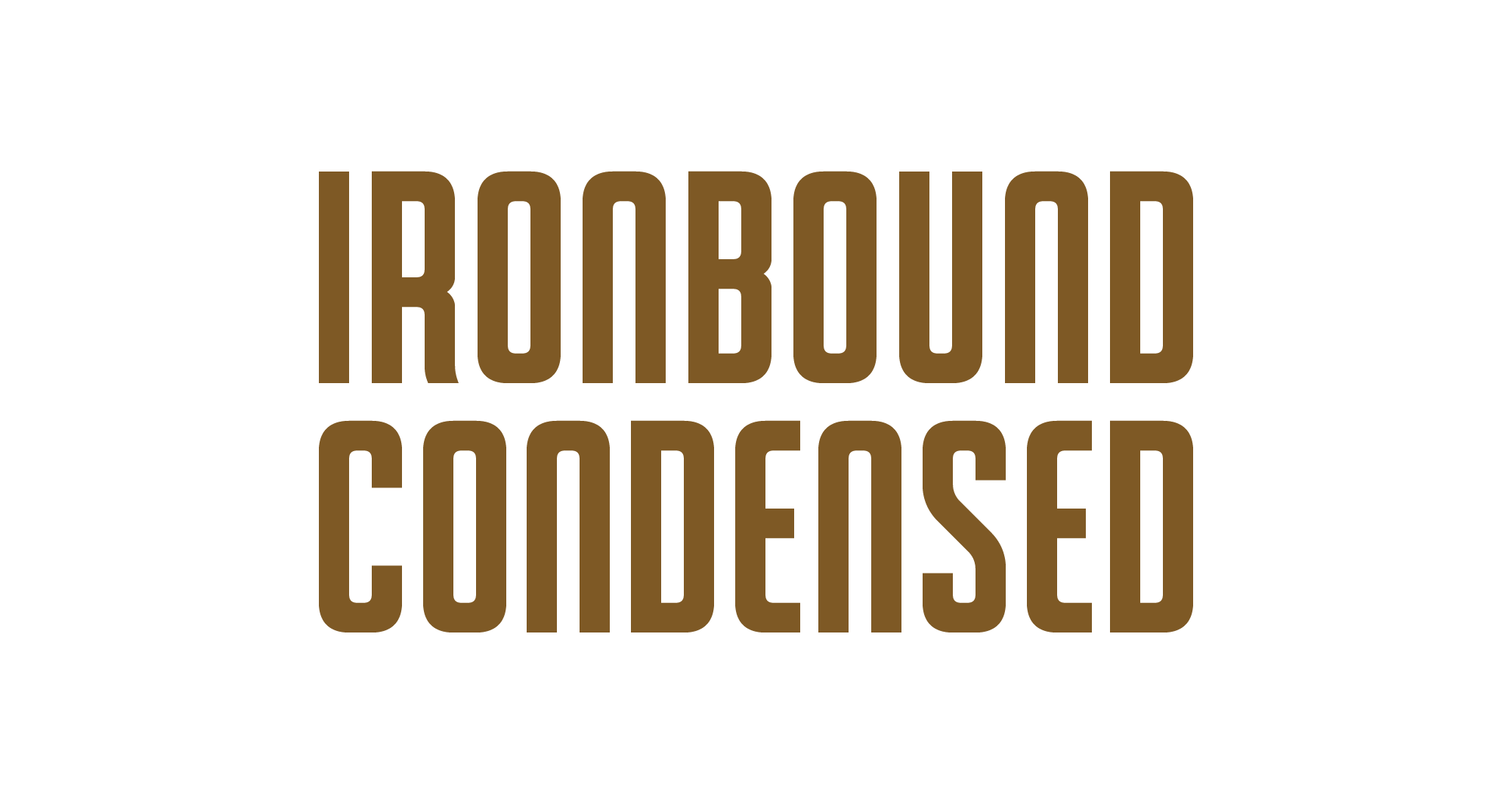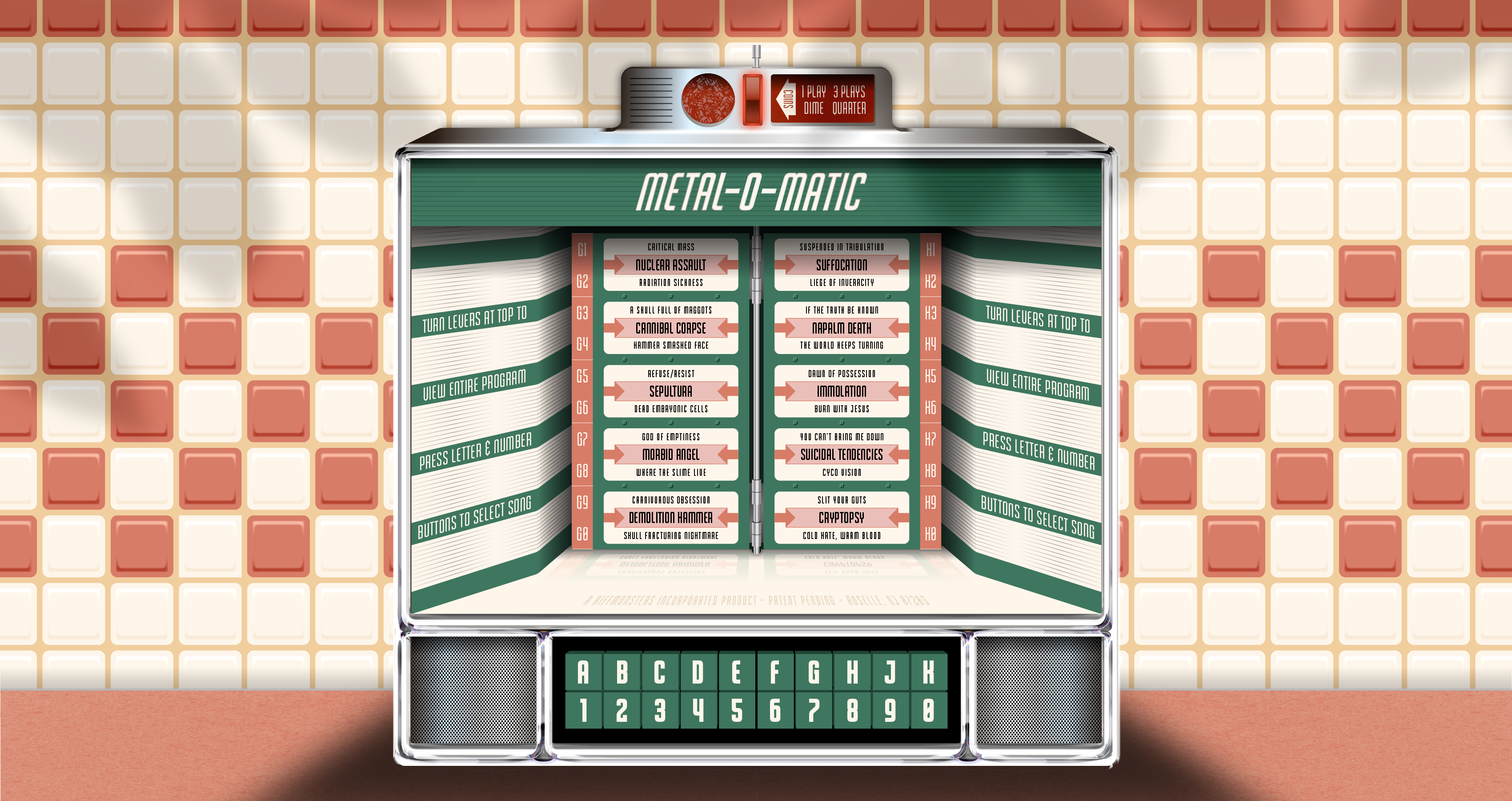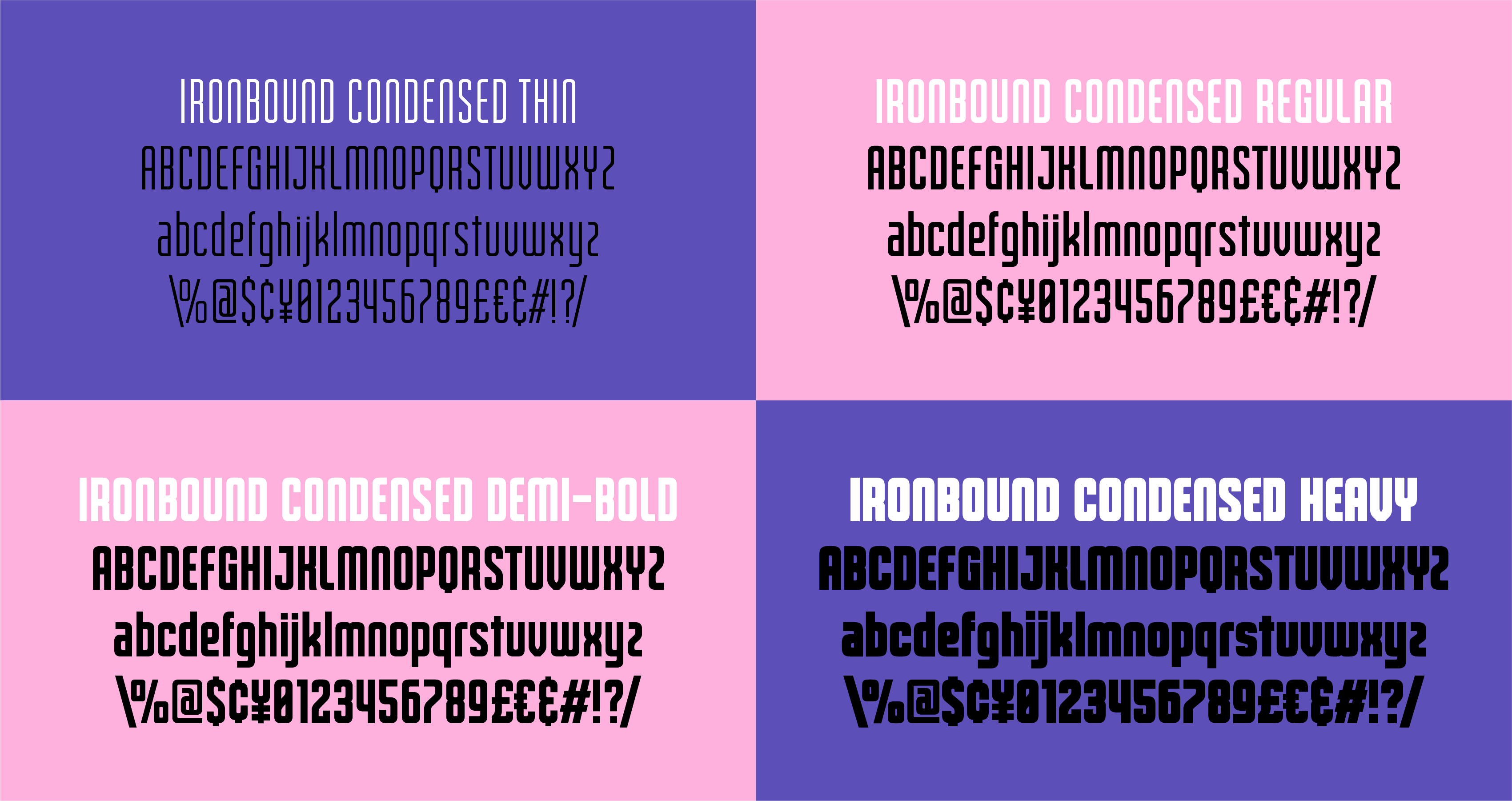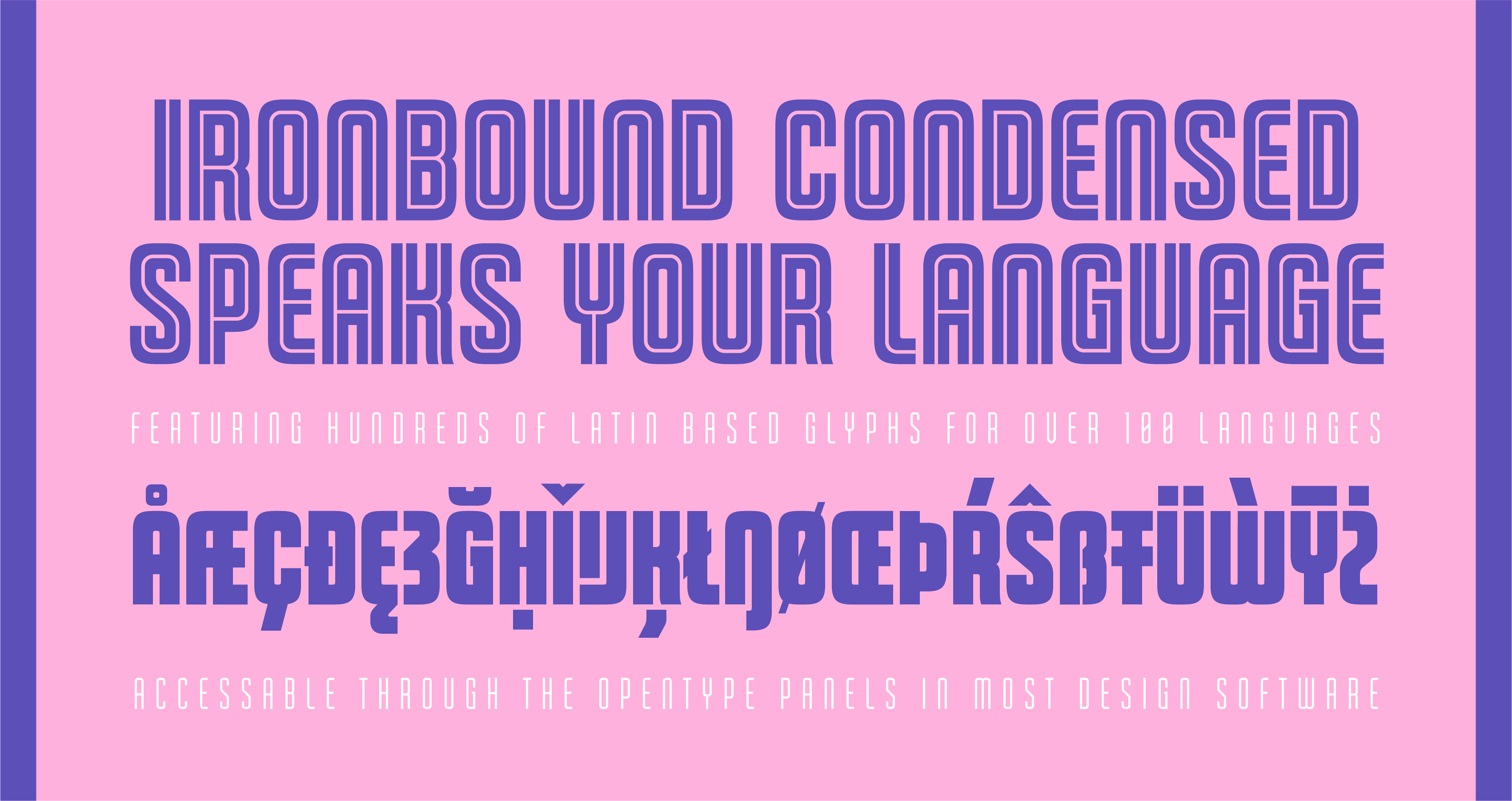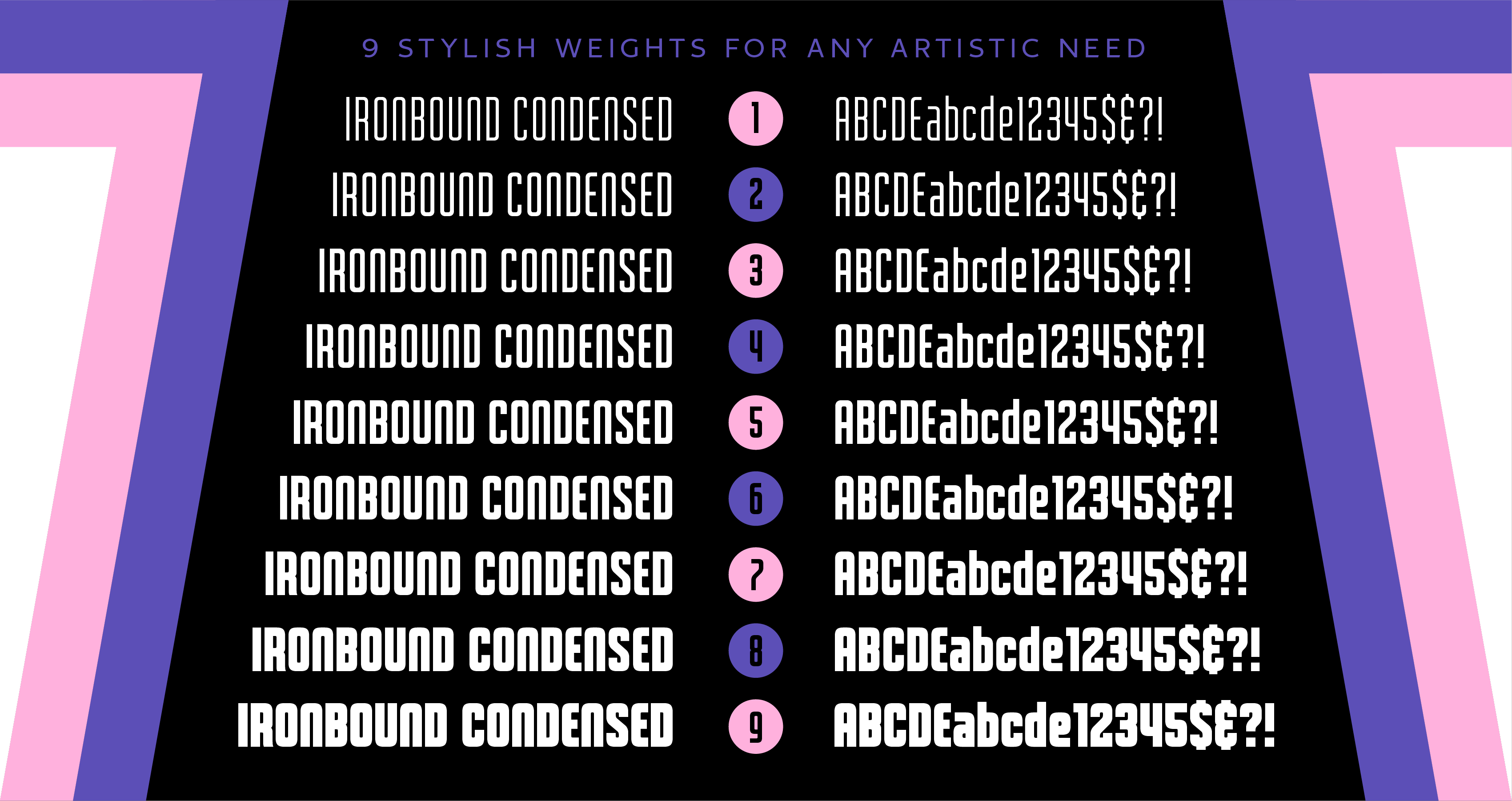
Ironbound Condensed
NEON NIGHTS AND SHORE STYLE
Ironbound Condensed is my homage to the brilliant mid-century neon signage of the doo-wop motel town of Wildwood, NJ I visited every summer in my youth. It's also inspired by the cast metal letters from classic storefronts of NYC - delicatessens, theaters, and luncheonettes of days past that have become fewer and rarer with each passing year.
Features:
Uppercase, Lowercase & Small Caps
Numerals, Punctuation & Fractions
9 Weights
700 Glyphs per Weight, 6,300 Total
Supports 75+ Latin based languages
Designed and Developed by Jason Carne